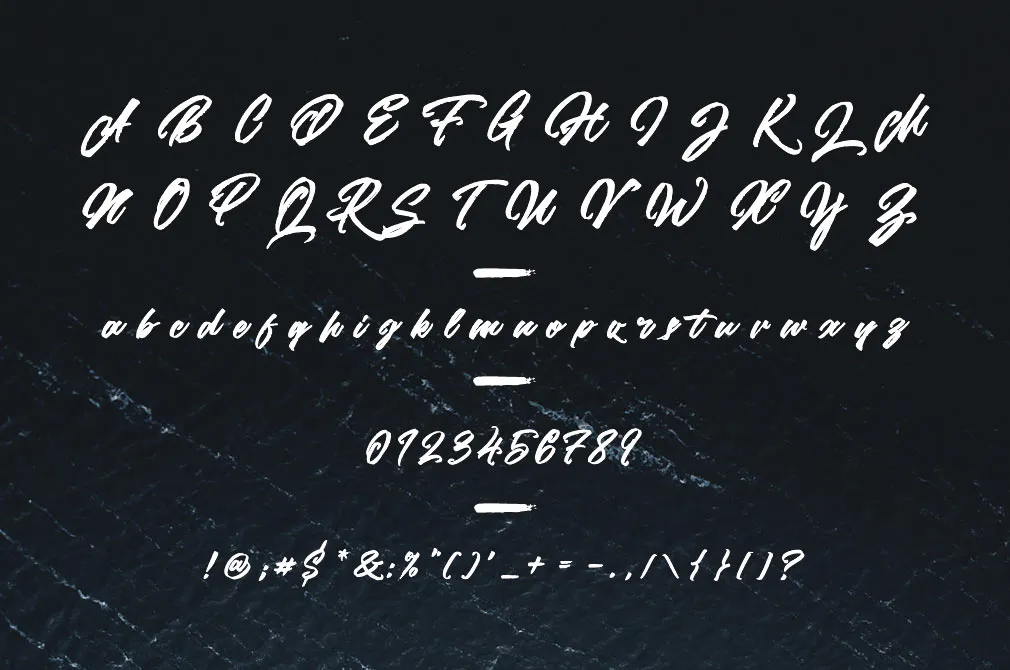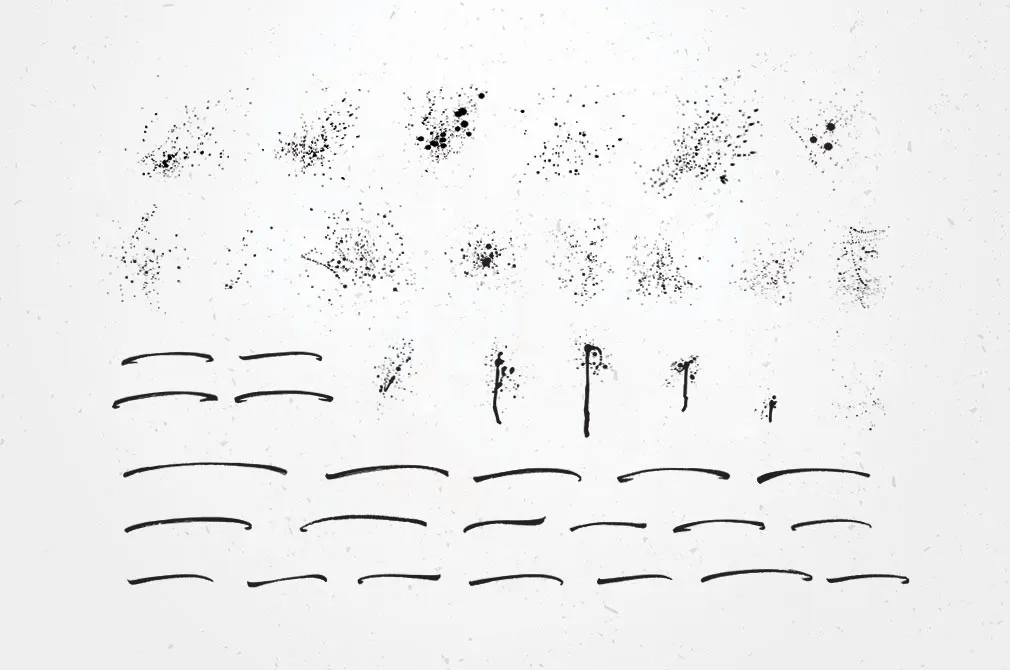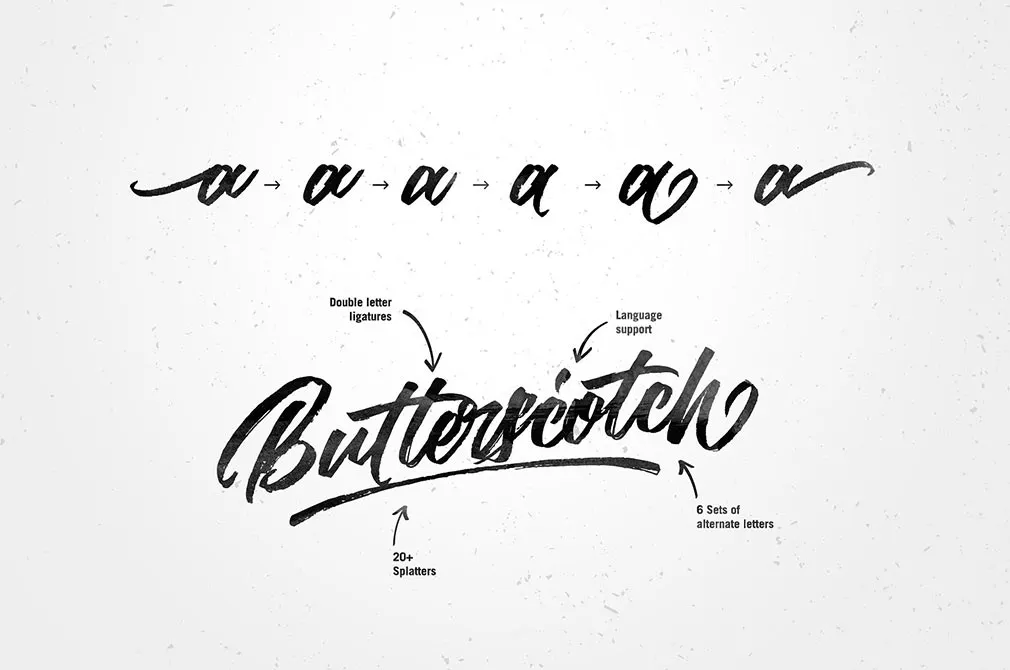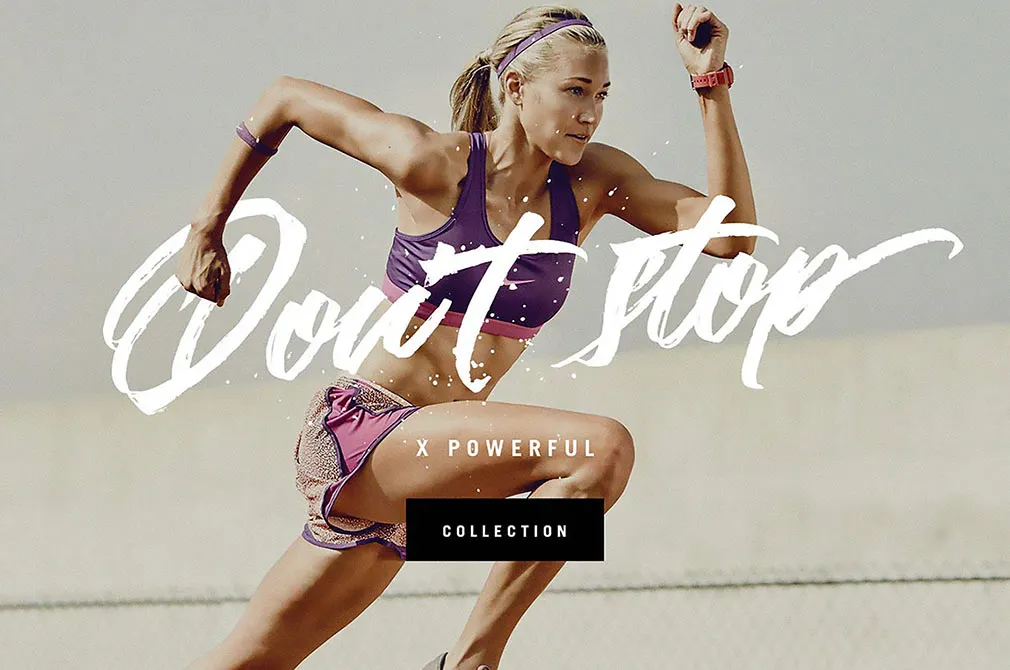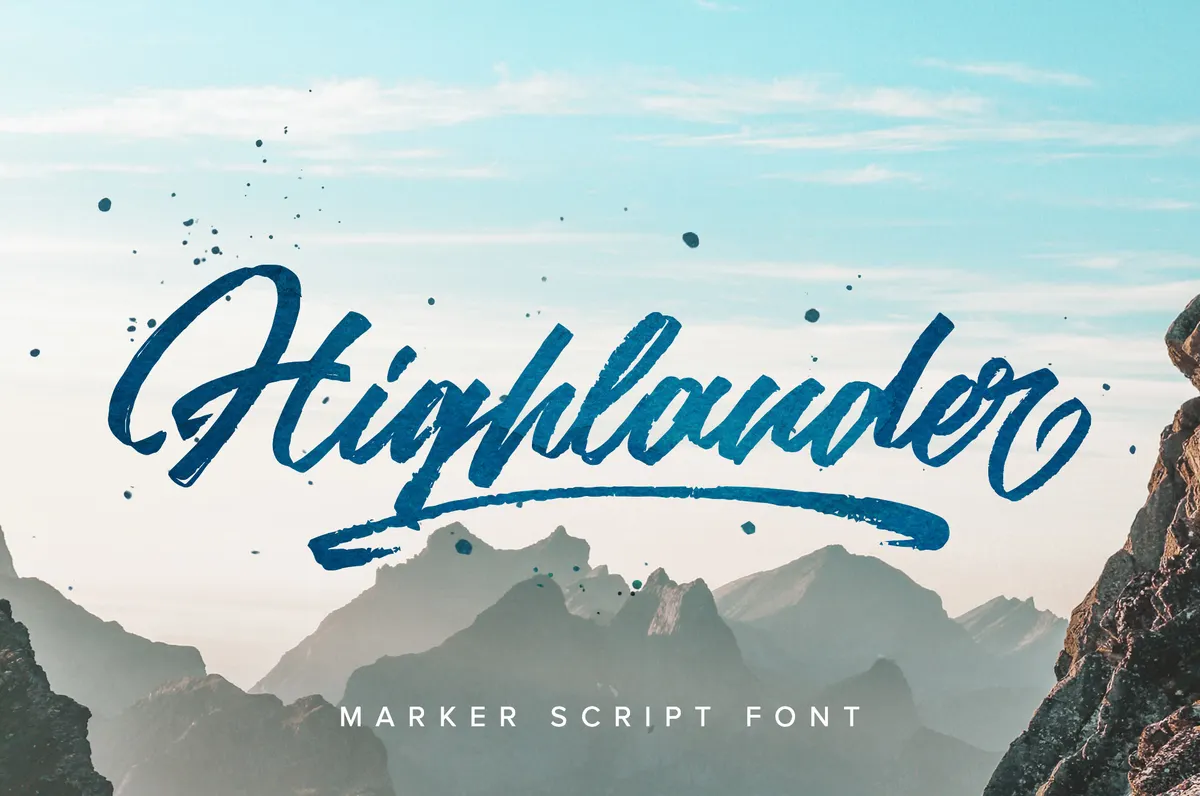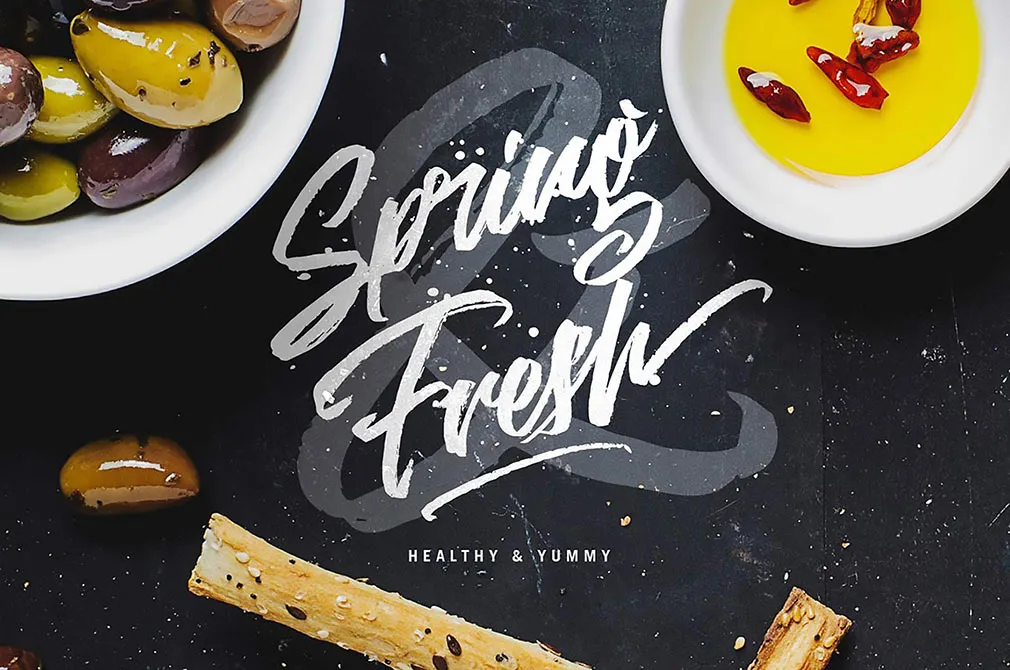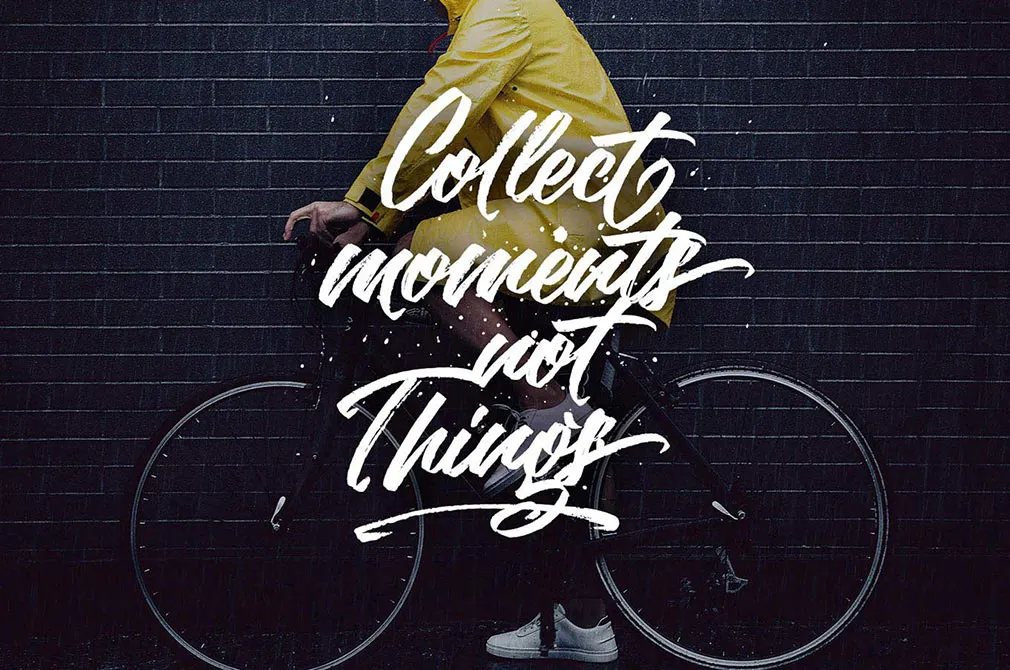
Highlander Marker Script Font
With thousands of typefaces at hand will you ever refuse to have one more more inspiring than anything you saw earlier? Will you refuse from Highlander script with freshness in every stroke?
Brough with a minimalistic companion typeface, Highlander makes a perfect typographic combination and fits all sorts of design projects you hunt for. And loads of beautifully designed and drawn glyphs including numerals, swashes, punctuation & multilingual support set so many goals realizable, that you may hardly ever believe it all in all basic is limited is not what this typeface is about!